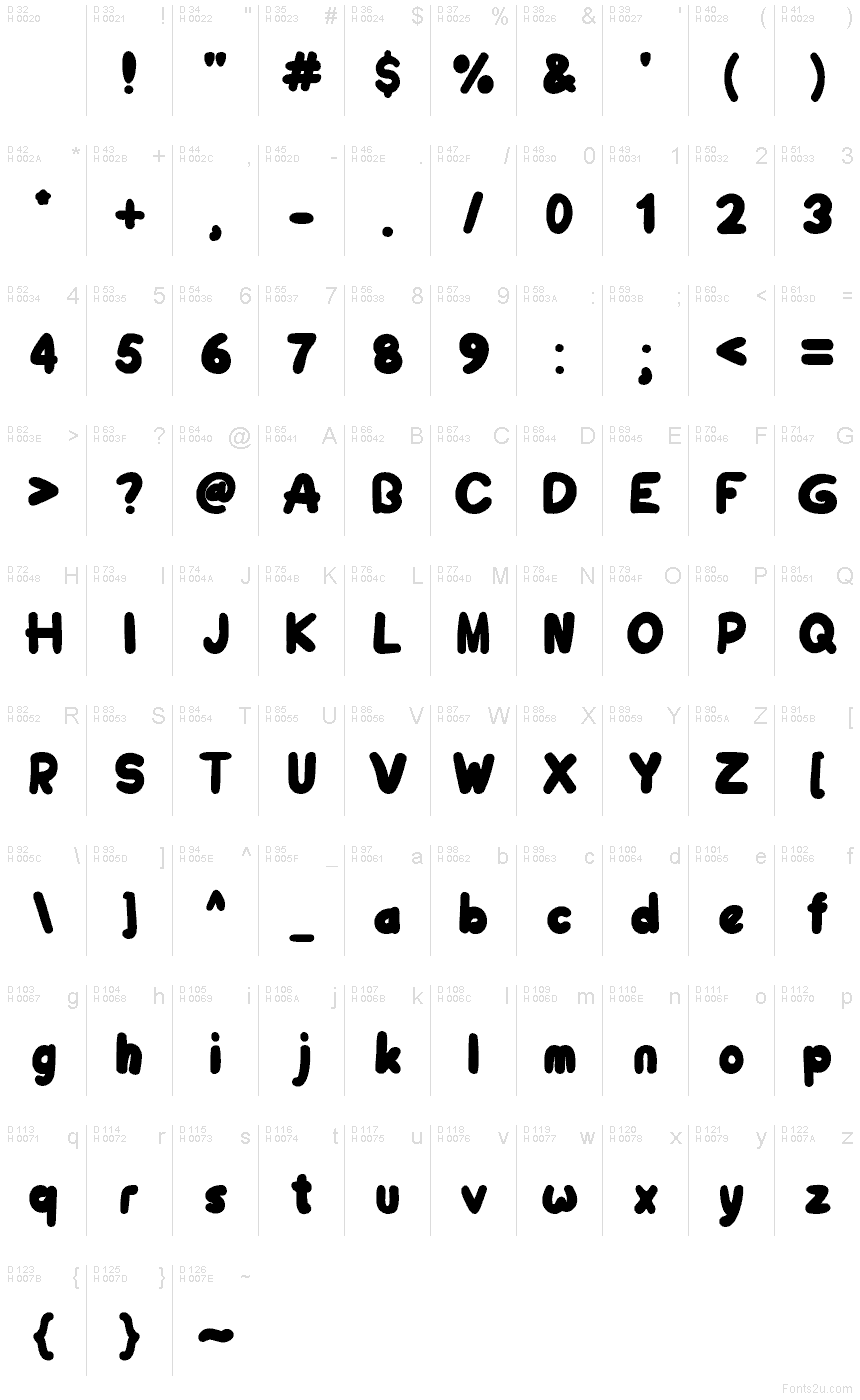
Small Cake
Small Cake font by Valiant Project is a free handwritten font that feels like it’s been piped onto the page with a frosting bag. The letters are bold, rounded, and slightly squishy, with a soft, inky weight that makes every word look friendly and deliciously chunky. There’s an easy, bouncy rhythm to the shapes that keeps text playful without becoming messy or hard to read.
Using Small Cake, you can instantly sweeten branding for bakeries, kids’ products, birthday invitations, stickers, YouTube thumbnails, casual logos, and cheerful social posts. This free font shines at larger sizes where its plump curves can really show, and it pairs nicely with a clean, thin sans serif for body copy to balance all that cozy, sugary energy.